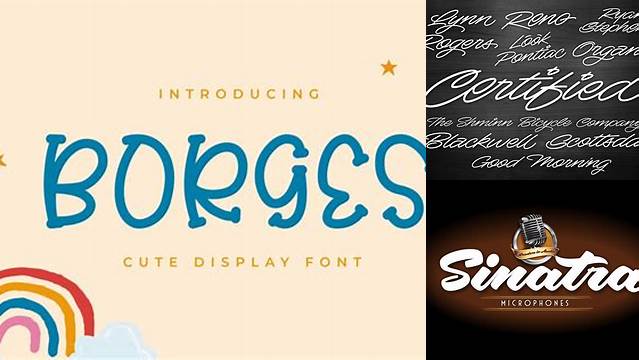
Free Borges Lettering Font Download & Design Guide
Hey guys! If you're on the hunt for a rad font that screams personality and a touch of vintage flair, then you've probably stumbled upon Borges Lettering. This font family has been making waves in the design world, and for good reason. It's got that cool, hand-drawn vibe that adds a unique touch to any project. So, what's the deal? Where can you snag a free download, and how can you use this awesome font to level up your creative game? Let's dive in!
The Charm of Borges Lettering Font
Borges Lettering isn't just another font; it's a statement. Think of it as the design equivalent of a vintage leather jacket – instantly cool and effortlessly stylish. Its origins are rooted in the art of hand lettering, giving it a warm, human touch that's often missing in the more sterile world of digital fonts. This is super important because it gives your design a real, authentic feel. No matter what you're working on, Borges Lettering adds a layer of personality that can really make your work pop. The font has a very versatile set of uses. From logos to posters, the font really makes its mark. It is also designed to be used with logos and other projects that include typography. It provides a wide variety of options. The best part about this font is the availability. With this font being free, it allows for projects with very little to no budget to get the best results. The font will help you add those finishing touches to make the project complete. Whether it's for a client or for yourself. The font also comes with a great design aesthetic. The bold and elegant style really gives it a creative and unique look.
Its hand-drawn style makes it perfect for designs that require a personal touch. It's ideal for branding projects, giving logos and identities a distinct and memorable look. Imagine using Borges Lettering for a coffee shop logo – it immediately conveys a sense of artisanal quality and warmth, right? It's also fantastic for posters, invitations, and social media graphics. Think about it: a Borges Lettering poster for a gig or a film festival instantly grabs attention. The font's character and uniqueness make it stand out in a sea of more generic options. For designers, this is a huge advantage. It helps your work look fresh and original, making clients (or yourself) super happy with the results. Plus, it's not just about looks. Borges Lettering is also designed with readability in mind. Even with its decorative style, it remains legible at various sizes, making it practical for various applications. From small text on product packaging to large headlines, it gets the job done without sacrificing style. The hand-drawn style, when paired with the right colors and layouts, makes a design really sing. This font is an investment in creativity, enabling designers and hobbyists to produce work that is not just visually appealing but also emotionally engaging. It's like having a secret weapon in your design arsenal, ready to add that special something that makes your work unforgettable. This font is more than just a font, it's an experience.
- Hand-Drawn Aesthetic: This is the heart and soul of Borges Lettering, giving it a unique, personal feel. The imperfections and variations in the letters are what make it so appealing and different from other fonts.
- Versatility: It works great for branding, posters, social media, and more. It's adaptable to a wide range of design projects.
- Readability: Despite its decorative nature, it remains easy to read at various sizes. This is crucial for practical applications.
- Emotional Engagement: The font helps create designs that connect with people on a deeper level, adding to the overall impact.
Creative Applications and Design Ideas
So, you've got the font. Now what? Here are some cool ways you can use Borges Lettering to add some serious flair to your projects:
Logo Design
- Brand Identity: This font is perfect for creating logos that stand out. Use it for businesses that want a friendly, handmade vibe.
- Examples: Think coffee shops, craft breweries, artisan bakeries, and vintage shops. It gives them an instant boost of character.
Poster Design
- Event Promotion: If you need to grab attention, use Borges Lettering for posters promoting events. It's fantastic for music gigs, film festivals, and art exhibitions.
- Typography and Layout: Experiment with different layouts, colors, and supporting fonts to create visually appealing posters. Pair it with images and graphics to make it pop.
Conclusion: Embrace the Borges Lettering Vibe!
So there you have it! Borges Lettering is an amazing font. It's a fantastic choice for adding a unique, handcrafted touch to your projects. Its versatility, readability, and free availability make it an asset for any designer or creative enthusiast. So, go ahead, download it, and start creating some awesome designs! Get creative, and most importantly, have fun with it! Happy designing, y'all!